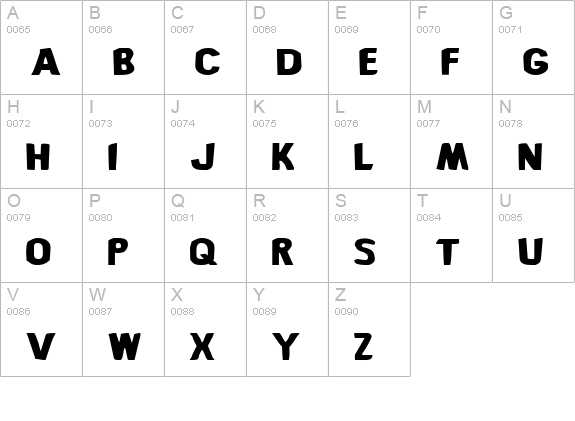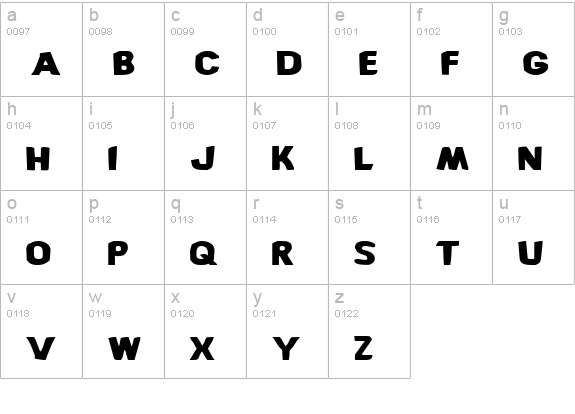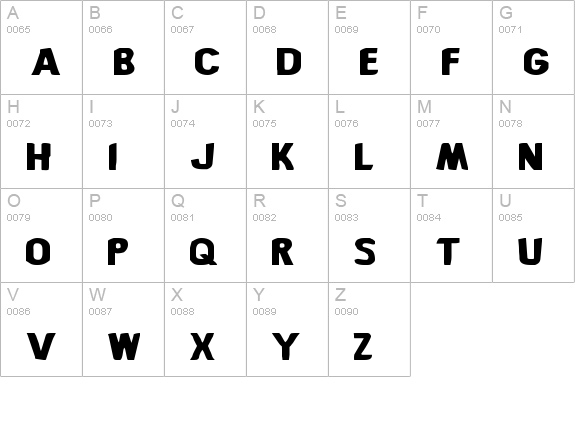
Bronic Expanded is a distinctive, extended-width variant in the Bronic typeface family \xE2\x80\x94 well suited to design and typography projects.
Bronic Expanded font is a modern and stylish typeface that exudes sophistication and elegance. Its clean lines and wide letterforms make it perfect for a variety of design projects, from branding to editorial design. The sleek and contemporary look of Bronic Expanded font will add a touch of class to any project. What's even better is that Bronic Expanded font is available for free download at FontsMarket.com. This means that you can elevate your designs without breaking the bank. Don't miss out on the opportunity to add this versatile and eye-catching font to your collection. Download Bronic Expanded font today and take your designs to the next level!